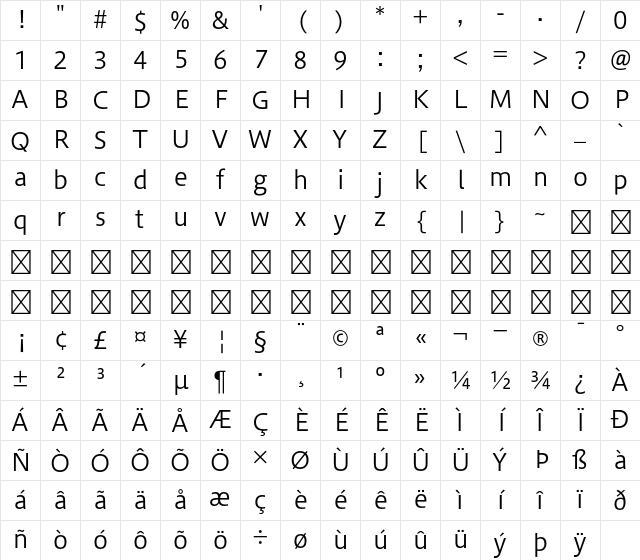
Complete Hiragino UD Sans Std W3 glyph index. Displaying only characters natively supported by Hiragino UD Sans Std W3 font.
Hiragino UD Sans Std is a composed and adaptable typeface that performs quietly and consistently across a wide range of design contexts.
Who designed the Hiragino UD Sans Std W3 font?
This font was published by Dainippon Screen Mfg. Co., Ltd.. Check the technical specs section for copyright and designer details.